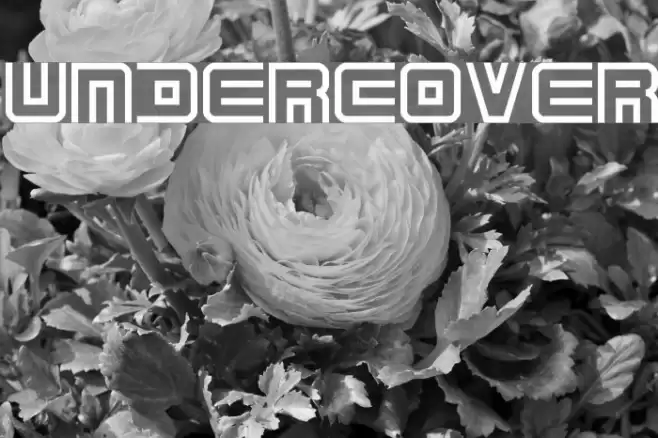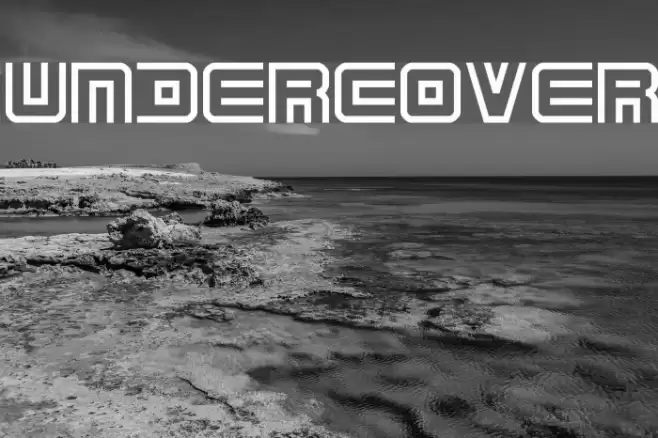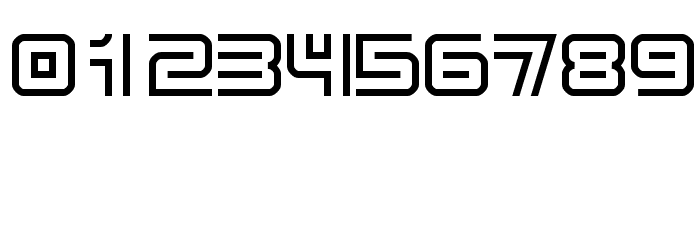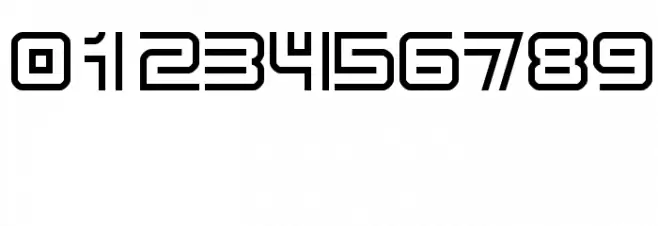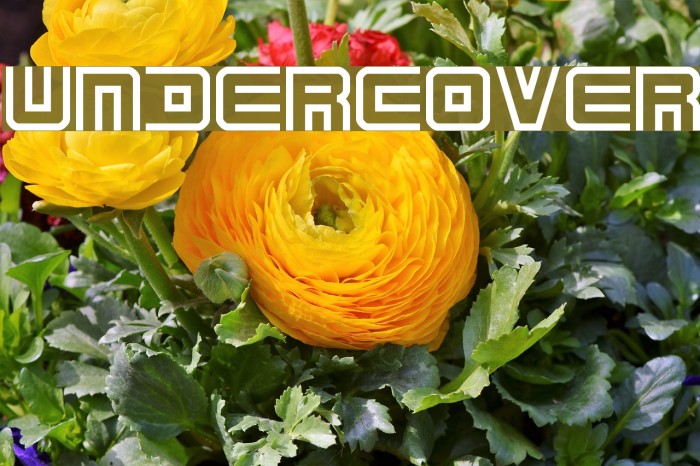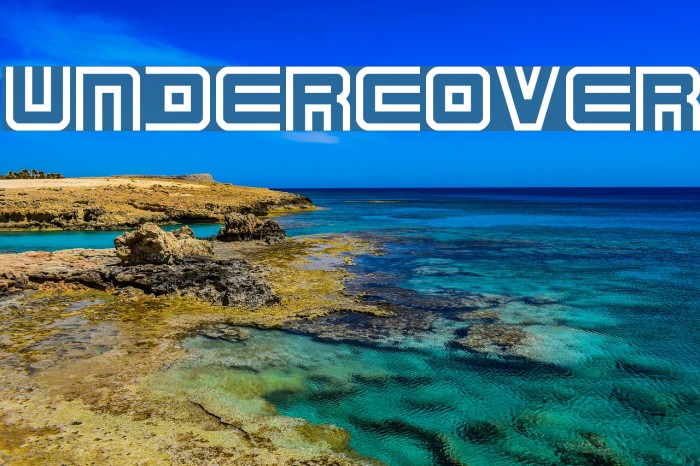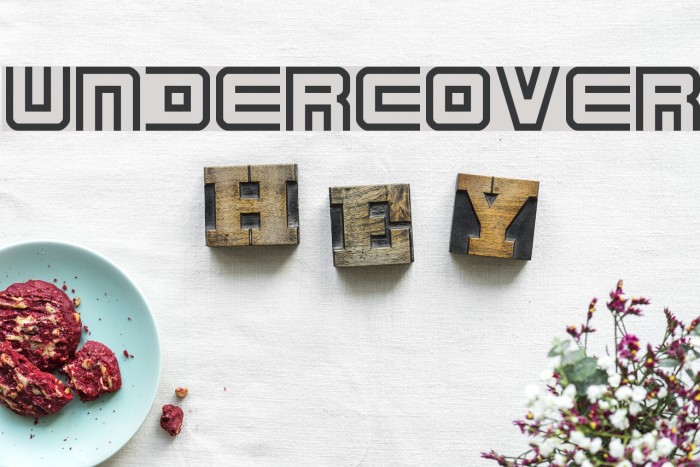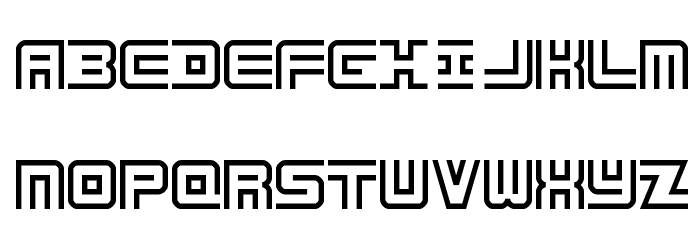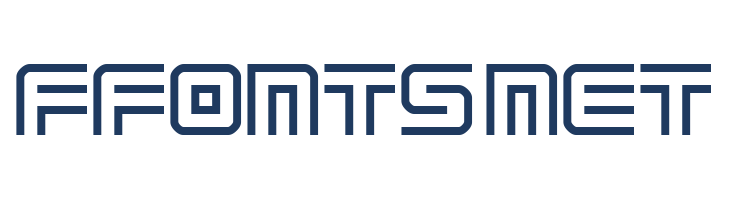
Undercover Font
Undercover Description
This font features a geometric and futuristic design with a distinct stencil-like appearance. Each character is constructed with bold, straight lines and sharp angles, creating a sense of precision and modernity. The letters are uniformly structured, with consistent spacing and alignment, giving the font a cohesive and organized look. The use of negative space within the characters adds an element of intrigue and complexity, making it visually striking. The font's style is reminiscent of digital or technological themes, making it suitable for projects that require a contemporary and edgy aesthetic.
A geometric, futuristic font with a stencil-like design and bold, angular lines from Decorative fonts.
- Proposed Projects: Ideal for technology branding, sci-fi movie posters, video game titles, and modern digital interfaces.